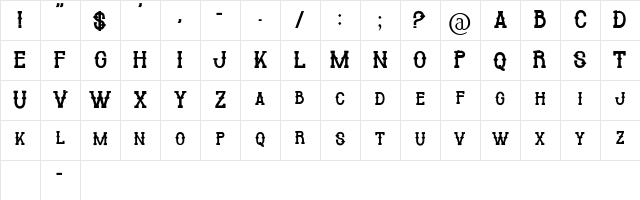
Complete Cowboy Cadaver Regular glyph index. Displaying only characters natively supported by Cowboy Cadaver Regular font.
Cowboy Cadaver echoes the hand-painted signage and woodblock typography of the American frontier, with a warm, rugged personality.
Font Pairing: Combine Cowboy Cadaver with a simple slab or neutral sans - period-accurate companions reinforce the vintage feel without competing for attention.
Pro Tip: Use Cowboy Cadaver for short, impactful bursts of text - it shines in poster headlines and product names rather than extended copy.